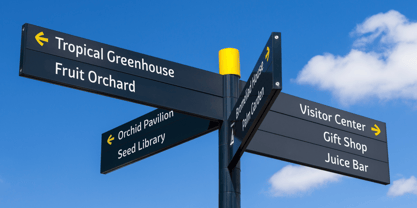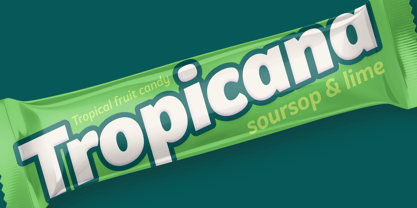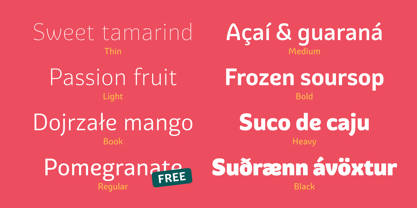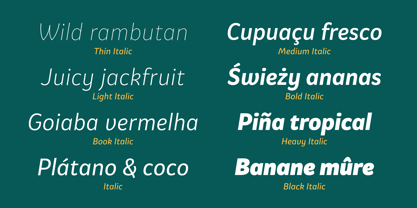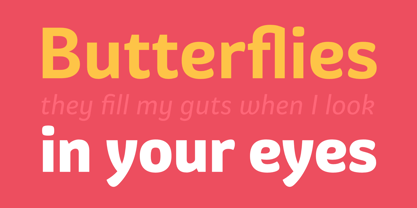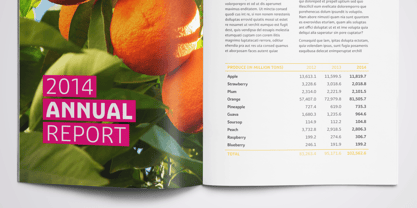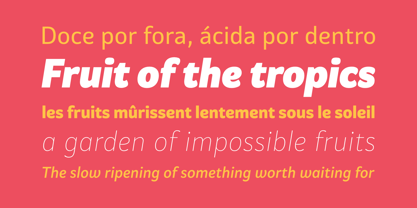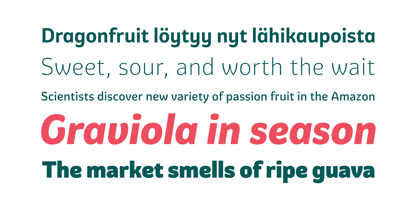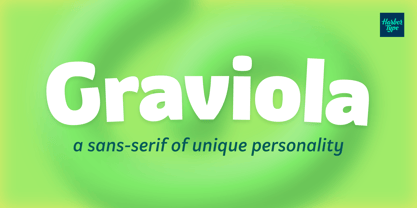
Graviola™
by Harbor Type
The Graviola Font Family was designed by Henrique Beier and published by Harbor Type. Graviola contains 16 styles and family package options.
🏆 Selected for Tipos Latinos 7 with a Certificate of Excellence.
With semi-rounded terminals, Graviola is soft and friendly. The family consists of 16 fonts, from Thin to Black and matching italics. While the intermediate ones are suited for body text, the extreme weights look specially beautiful at display sizes. Each font contains 530+ glyphs, supporting more than 90 languages. Stylistic sets provide alternates in two groupings (a, v, w, y and G, g, &).